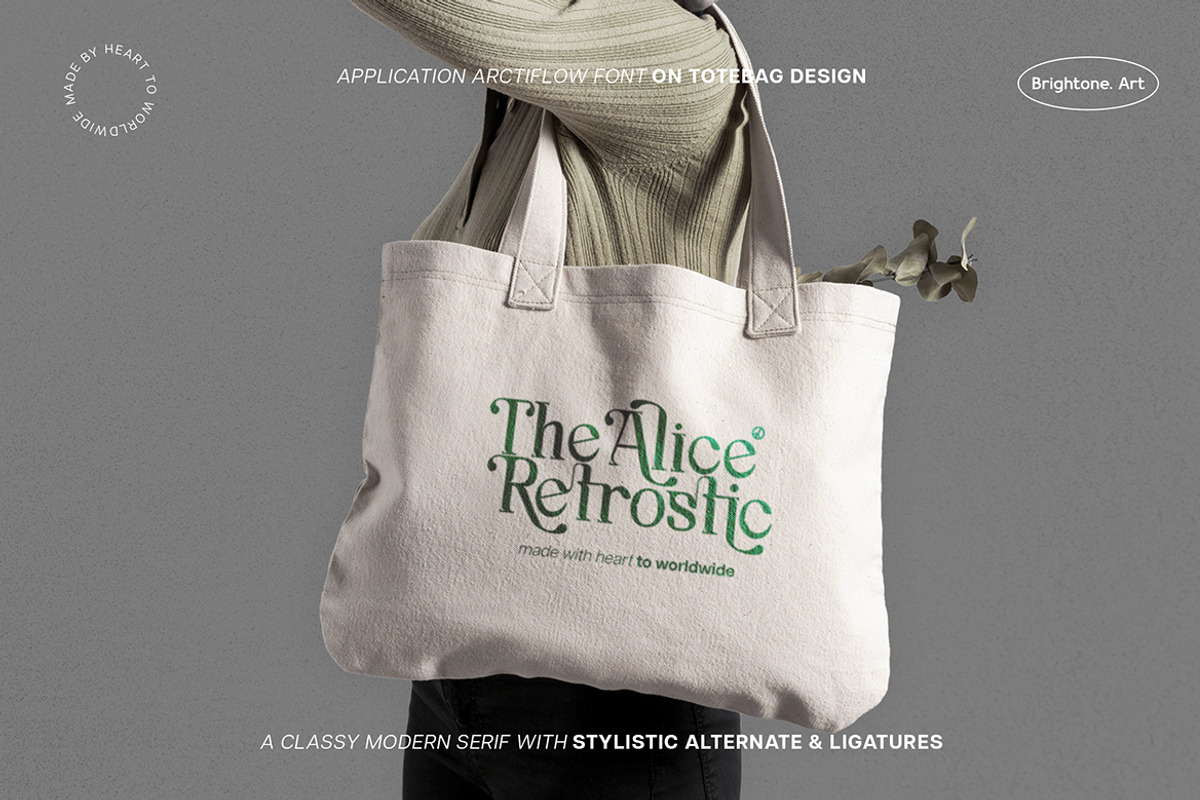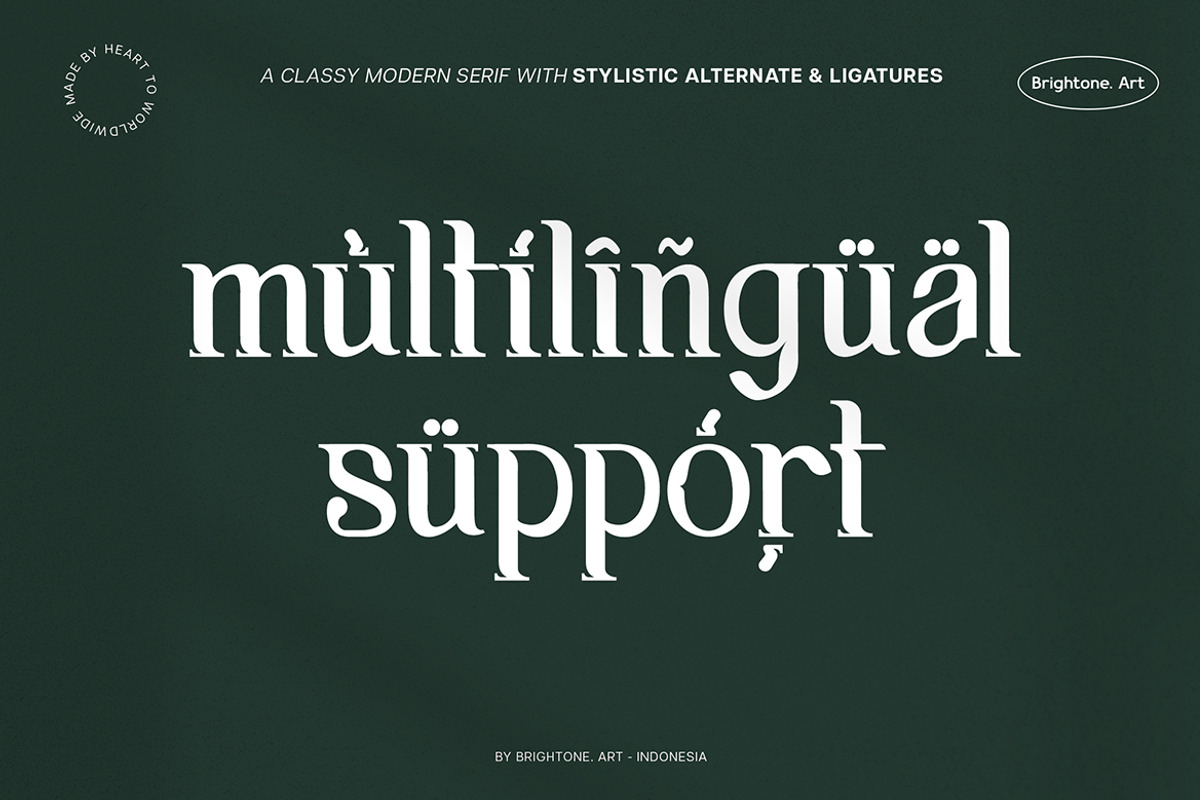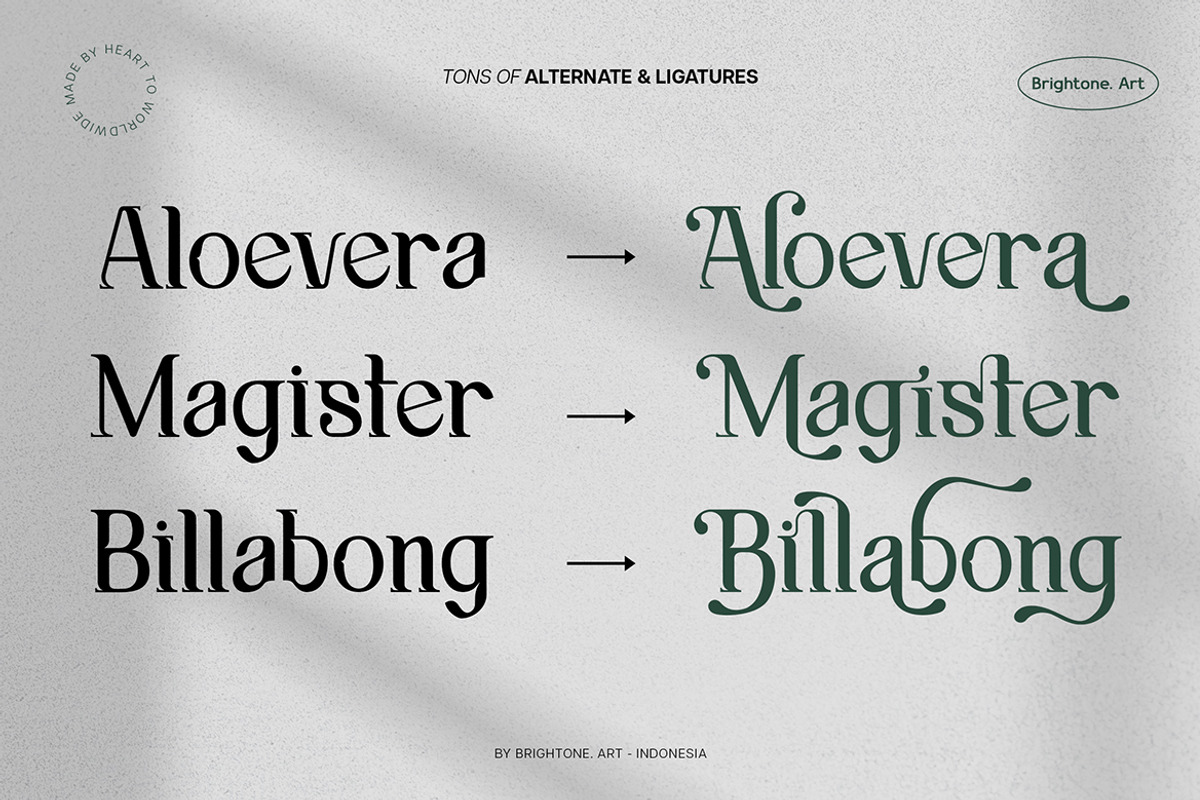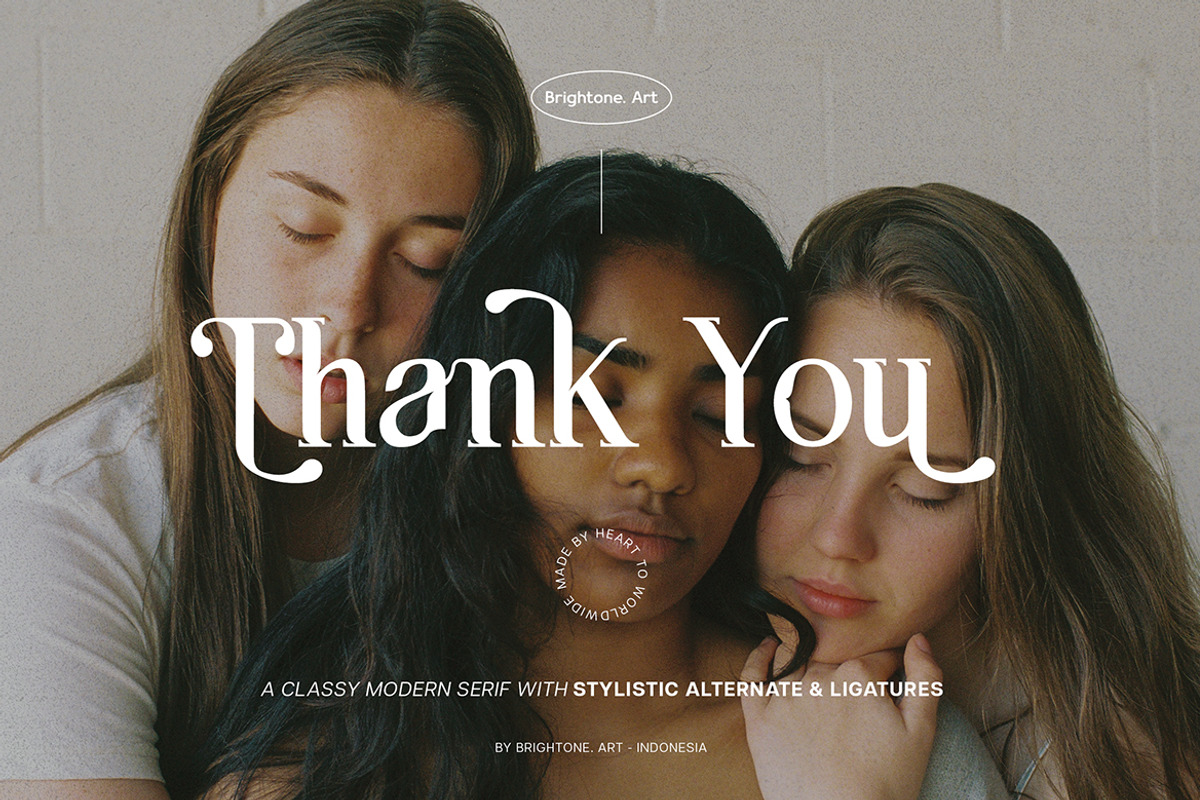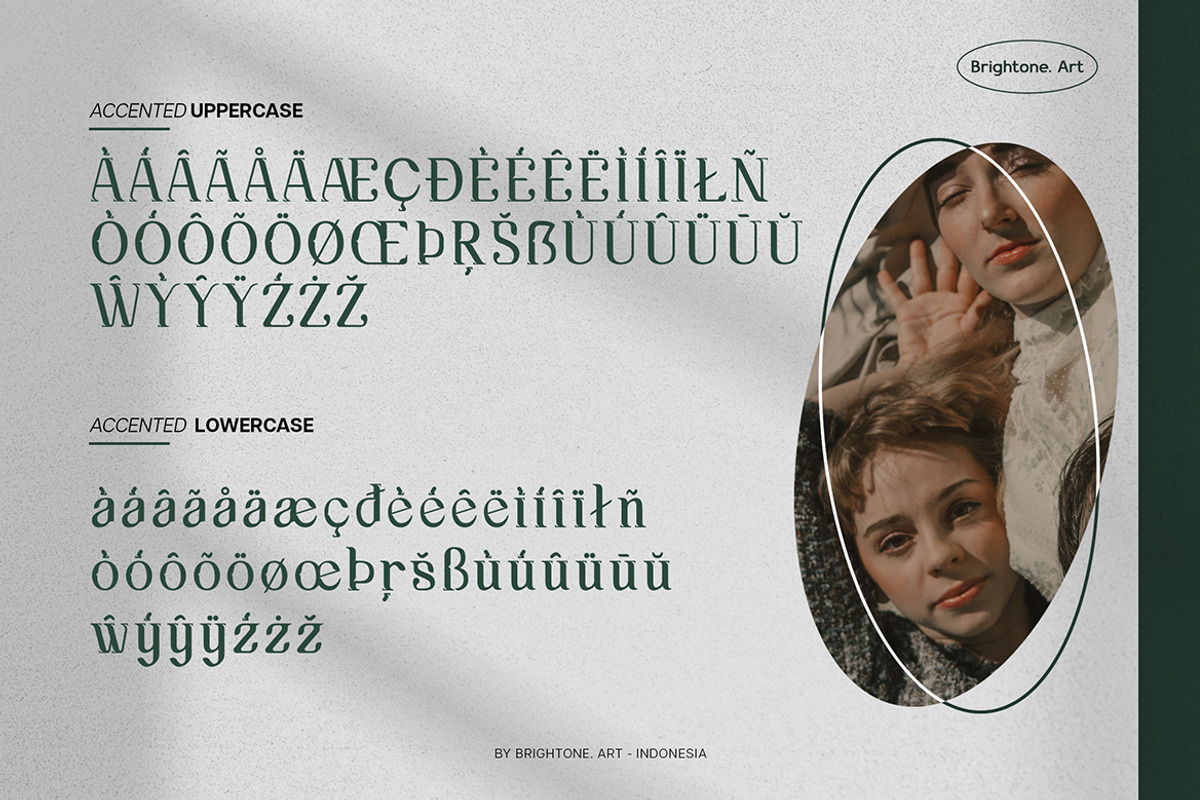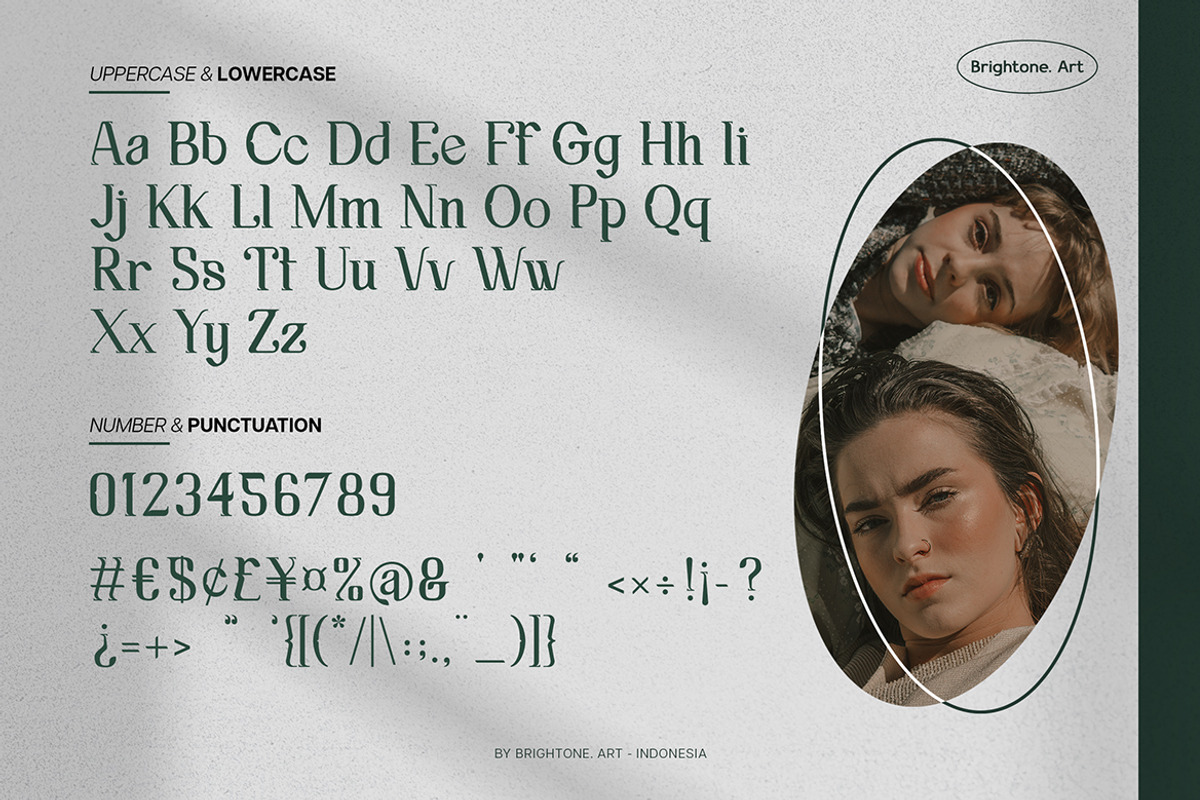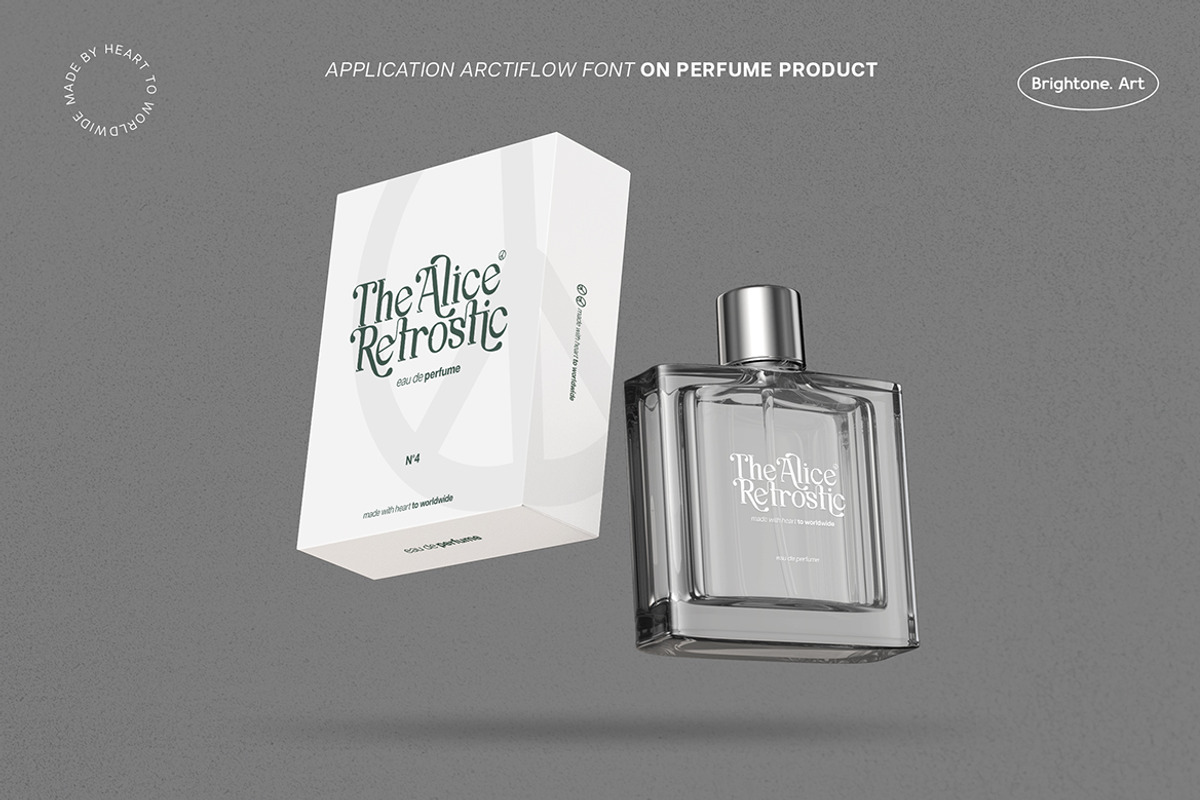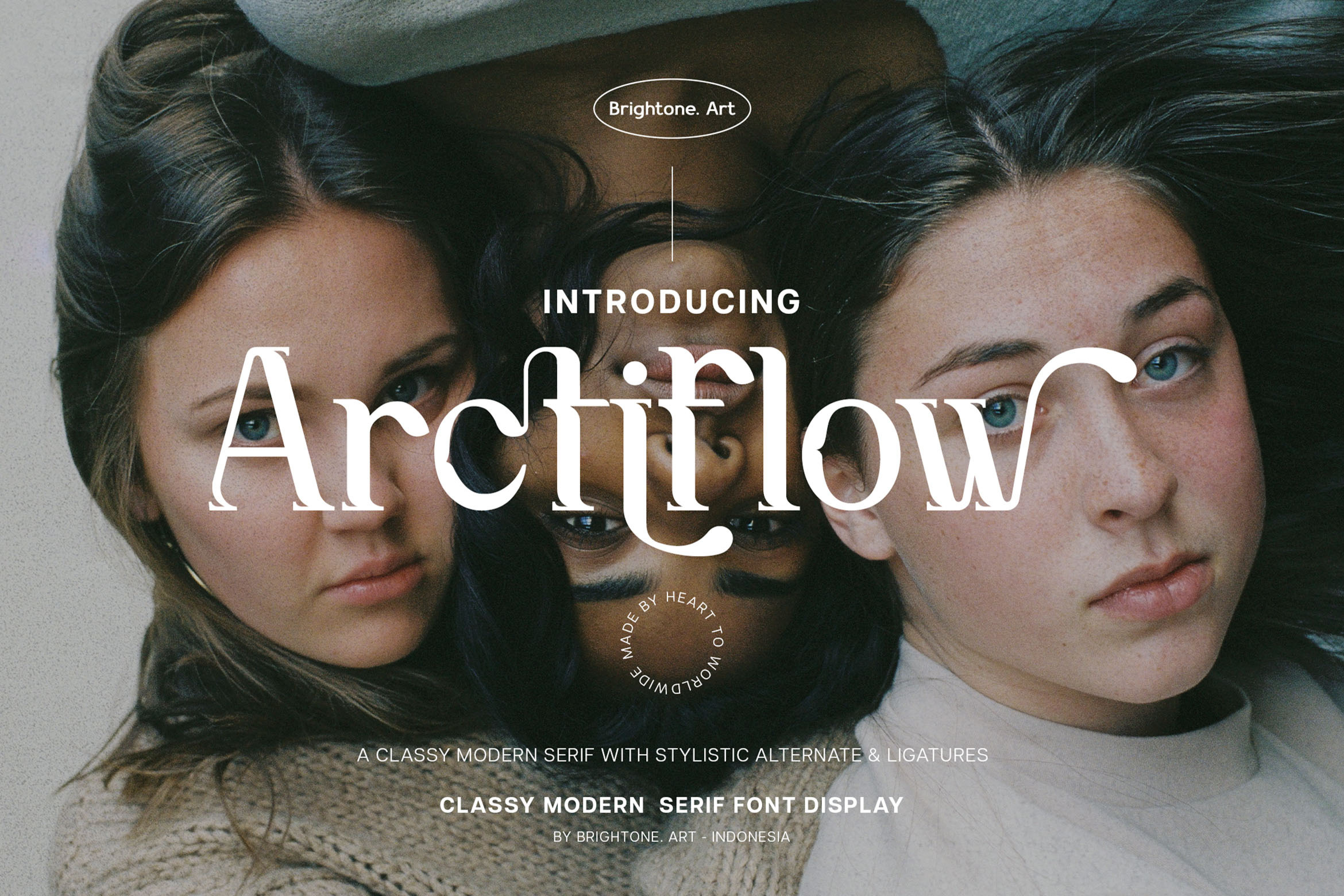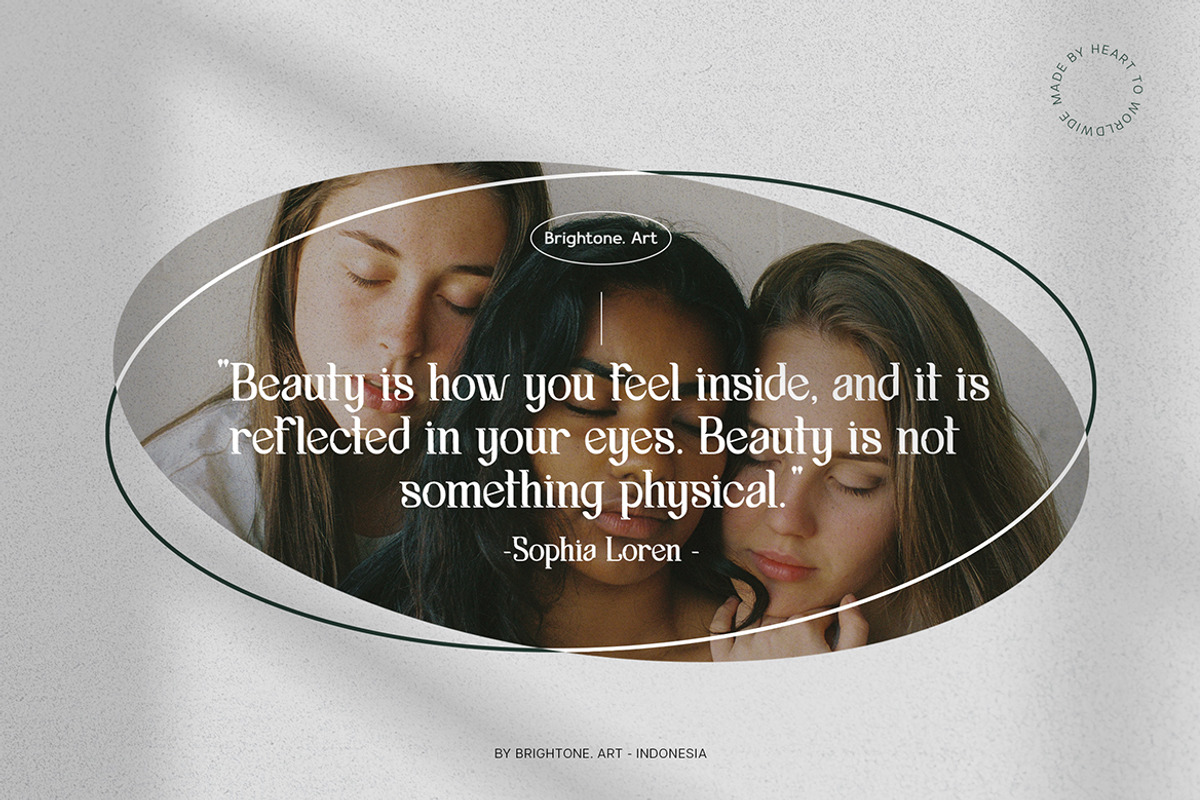
Arctiflow -Modern Serif Font
Arctiflow is script font with good style and classy touch, these font includes:
- Uppercase and Lowercase Characters, Numbers and Punctuation.
- Ligatures and Alternates.
- Multilingual Support (Eastern, Central and Western European countries).
Arctiflow font is suitable to use for all purpose for your logo lettering, logo, label, packaging, sticker, branding and many more.